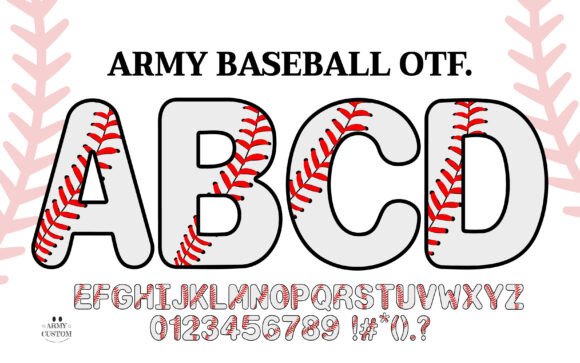
Step Up to the Plate with Army Baseball OTF: A Home Run for Sports-Themed Designs
I’ll never forget the time I was working on a project for a local Little League team, tasked with creating a logo that would make their team spirit shine. The problem was, I just couldn’t find the right font to capture the energy and playfulness of the game. That was until I stumbled upon Army Baseball OTF, a high-energy decorative color typeface that instantly transformed my design into a winning hit!
Army Baseball OTF is more than just a font – it’s a design statement that screams sports, fun, and team spirit. With its bold, rounded letterforms intricately detailed with classic red baseball stitching, this unique typeface is the perfect choice for any sports-themed project. Whether you’re designing Little League jerseys, dugout signage, sports bar menus, or birthday party invitations for the ultimate baseball fan, Army Baseball OTF is sure to hit a home run.
- ✨ Unique and eye-catching design: The bold, rounded letterforms with classic red baseball stitching make this font stand out from the crowd.
- ✅ Highly legible: Even when printed at large scales, Army Baseball OTF remains clear and easy to read.
- 💥 Versatile: This font works exceptionally well on physical products like custom caps, t-shirts, and water bottles.
- 🎉 Perfect for sports-themed projects: From Little League jerseys to sports bar menus, Army Baseball OTF is the perfect choice for any sports-related design.
⚠️ While Army Baseball OTF is an amazing font, it’s not suitable for body text or small font sizes. Its bold design and intricate details make it best suited for headlines or titles.
🤔 Some users may find the font’s bold style overwhelming for certain design projects. However, with a little creativity, you can find ways to balance it with other design elements.
The Designer Inspiration Behind Army Baseball OTF
The story behind Army Baseball OTF begins with a passion for baseball and design. The font’s creator, a sports enthusiast and designer, wanted to capture the energy and excitement of the game in a unique and eye-catching way. Inspired by classic baseball stitching and bold typography, Army Baseball OTF was born.
| Q: What type of projects is Army Baseball OTF best suited for? | A: Army Baseball OTF is perfect for sports-themed projects, such as Little League jerseys, dugout signage, sports bar menus, and birthday party invitations. |
| Q: Is Army Baseball OTF available in different styles or weights? | A: Currently, Army Baseball OTF is available in a single style. However, the font’s versatility and OpenType features allow for a range of creative possibilities. |
| Q: Can I use Army Baseball OTF on physical products? | A: Yes, Army Baseball OTF works exceptionally well on physical products like custom caps, t-shirts, and water bottles. |